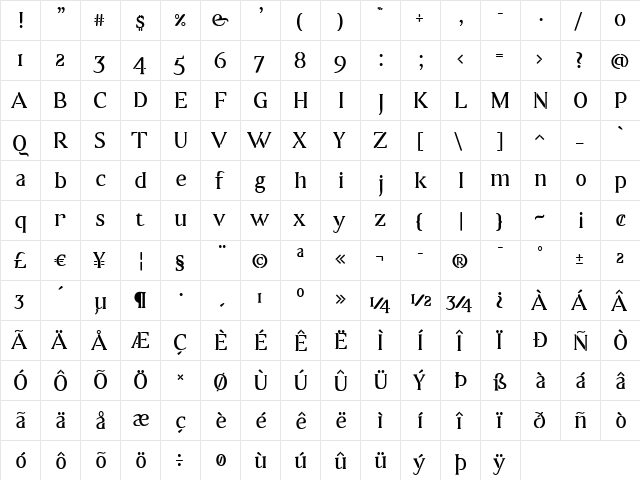
Torino Book Font Preview
Torino Book
Design Context for Torino Typeface
Torino is a composed and adaptable typeface that performs quietly and consistently across a wide range of design contexts.